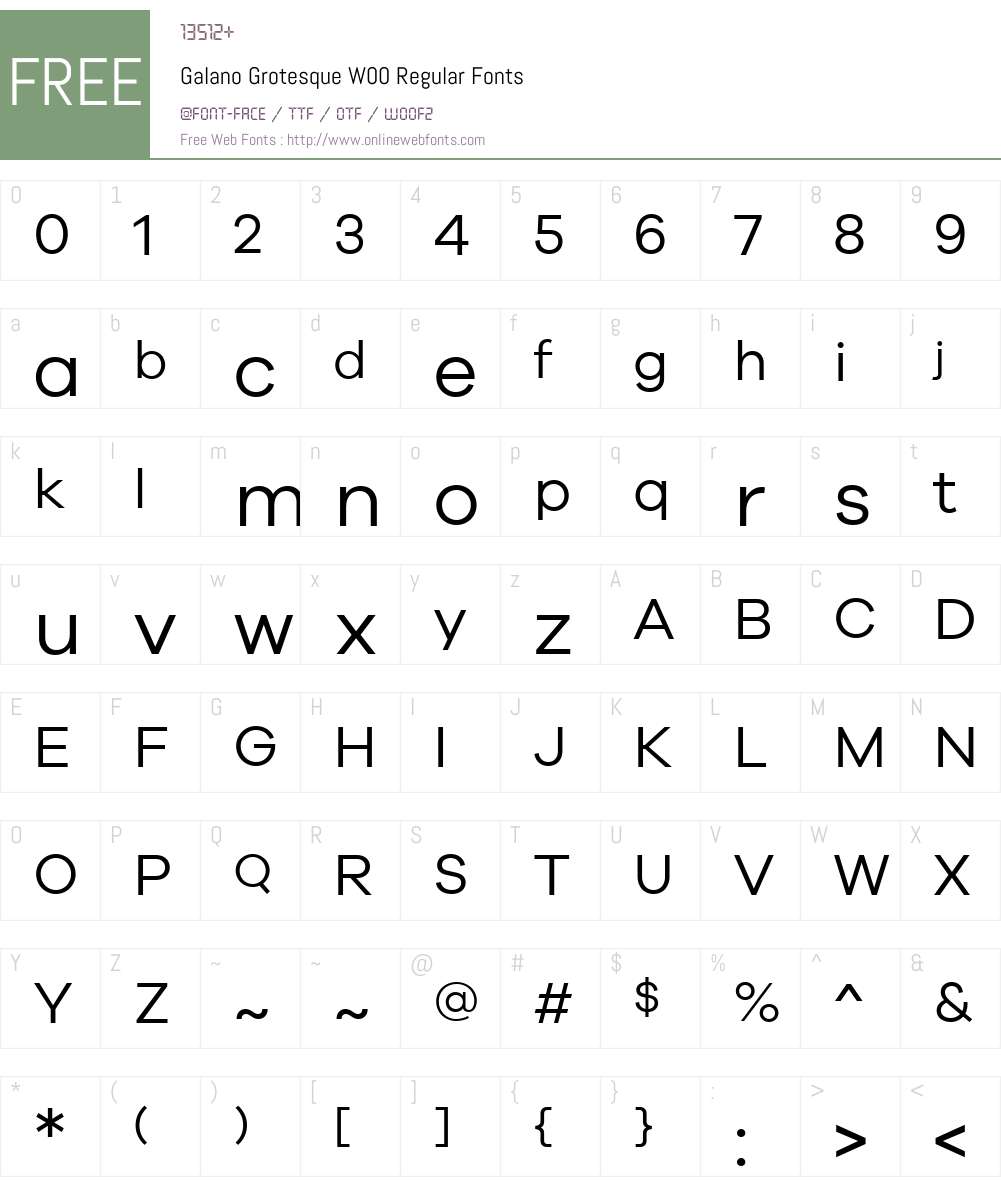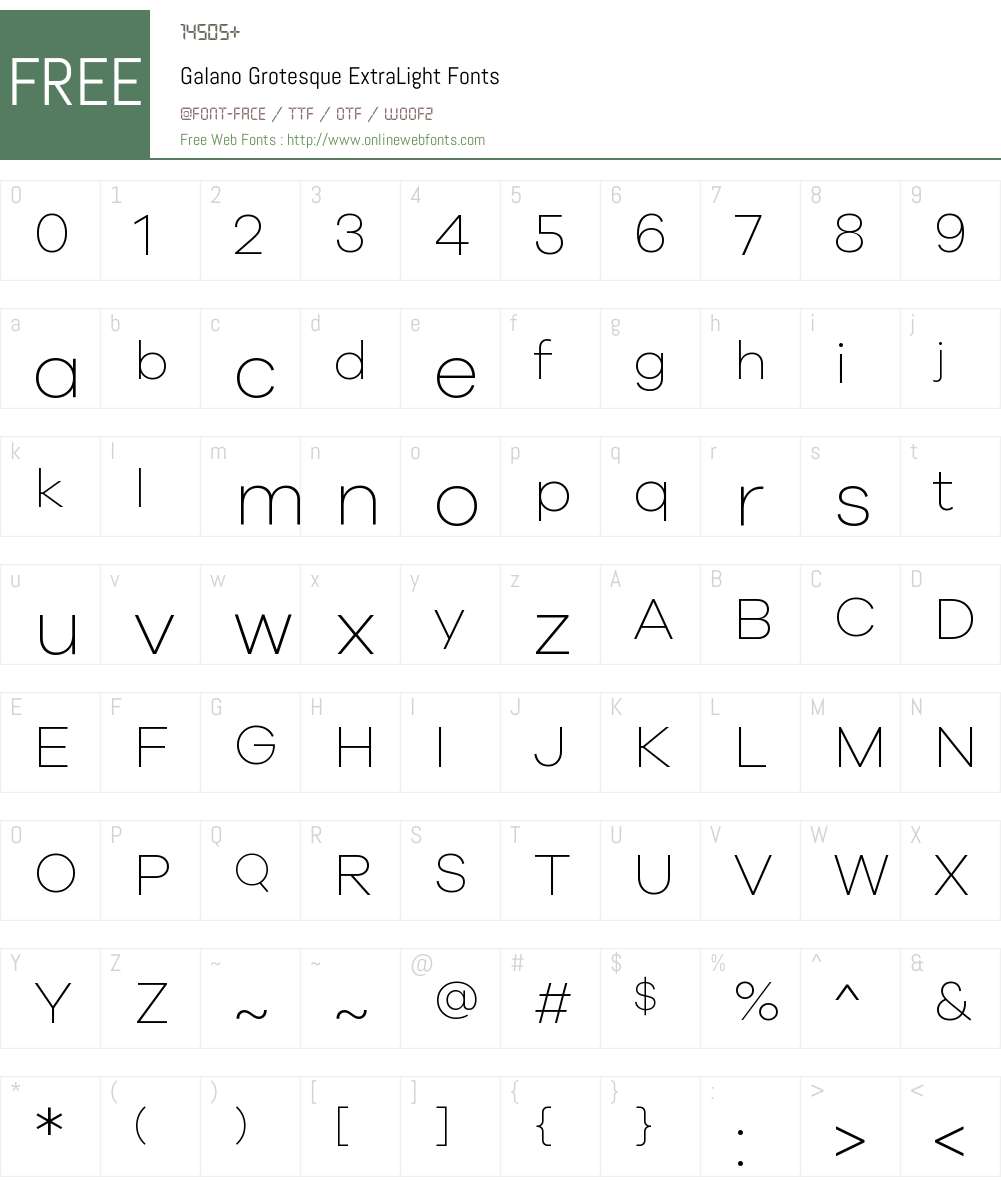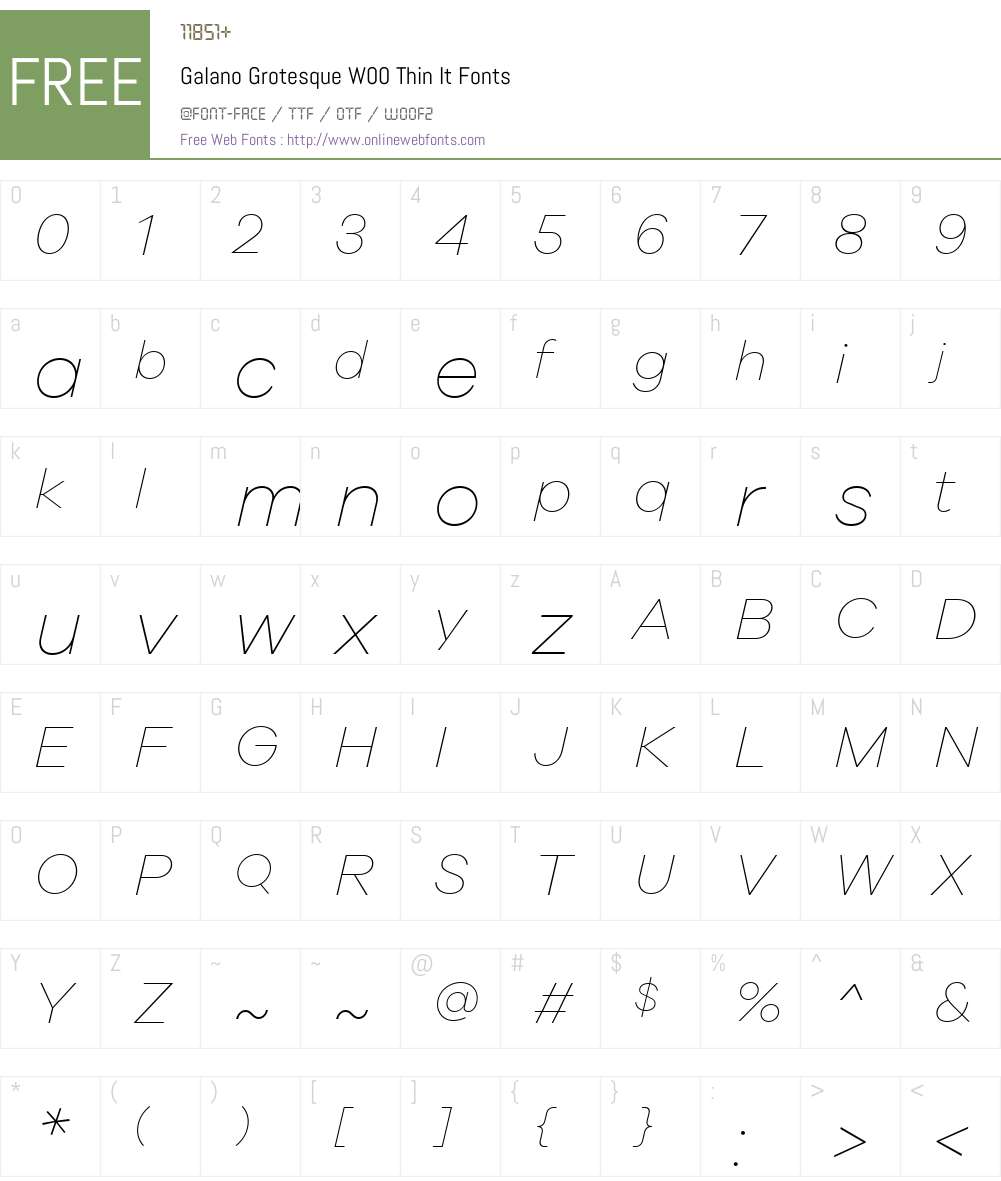
Galano Grotesque Regular Font Free Download. 15 professional galano grotesque fonts to download. Galano grotesque is a geometric sans in the tradition of futura, avant garde, avenir and the like.
It has a modern streak which is the result of a harmonization of width and height especially in the lowercase letters to support legibility. Check it for free with typograph. It has a modern streak which is the result of a harmonization of width and height especially in the lowercase letters to support legibility.
Galano Grotesque Is A Geometric Sans In The Tradition Of Futura, Avant Garde, Avenir And The Like.
Galano grotesque aims to be a universal weapon not only because it works. Galano grotesque is a geometric sans in the tradition of futura, avant garde, avenir and the like. 2 galano grotesque free demo fonts available.
A German Font Designer Mr Rene Bieder Took The Charge For Designing It And Releasing It.